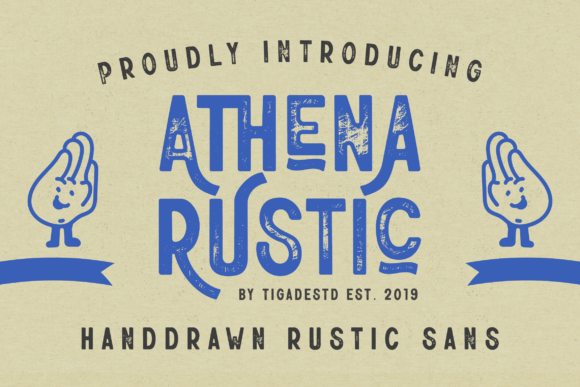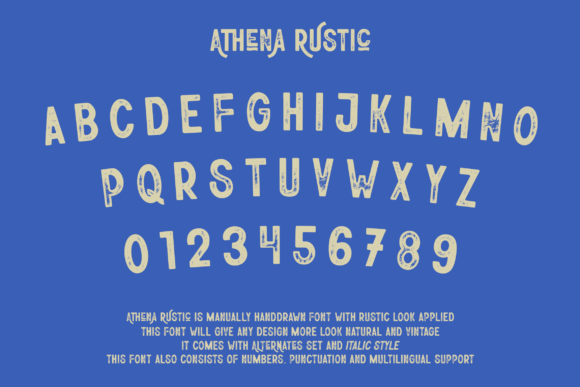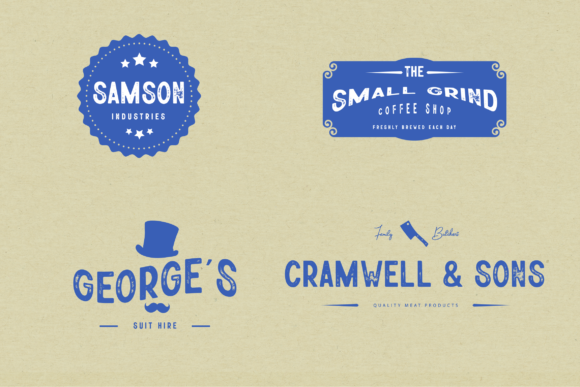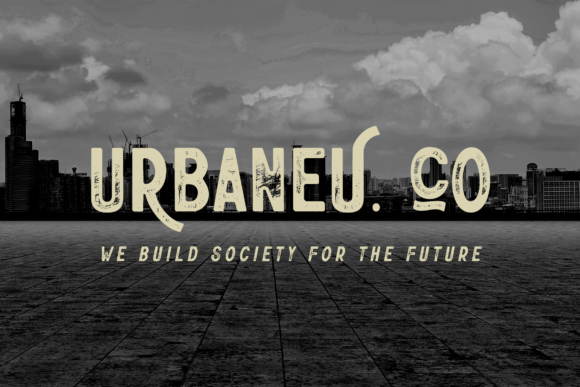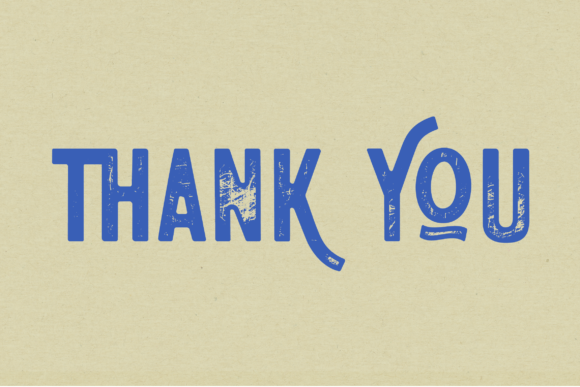
Athena Rustic Font
Athena Rustic is a cool and rough textured display font. It features a vintage vibe and it will work incredibly well on labels, branding and posters. This font is PUA encoded which means you can access all of the glyphs and swashes with ease!